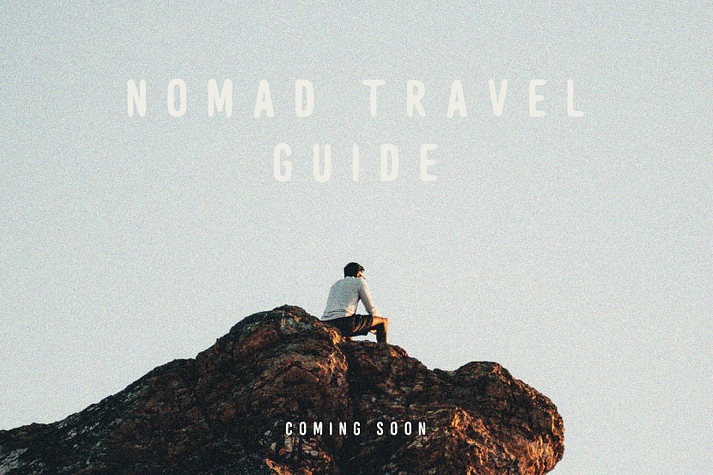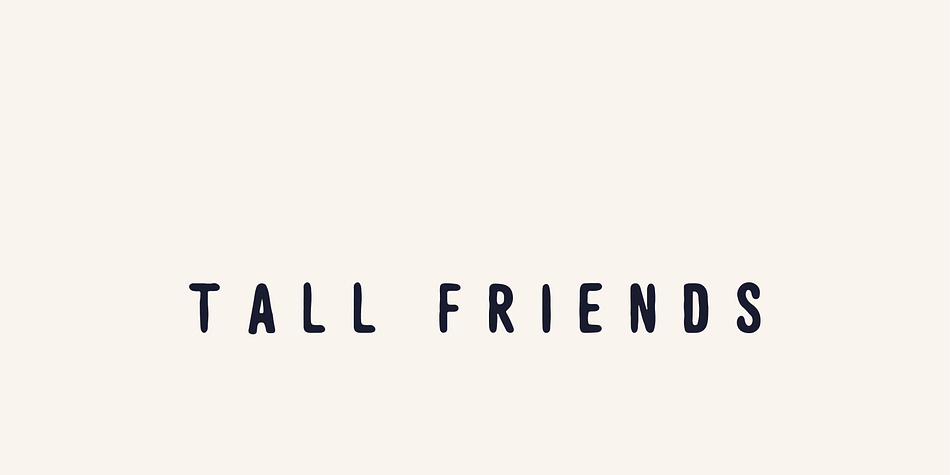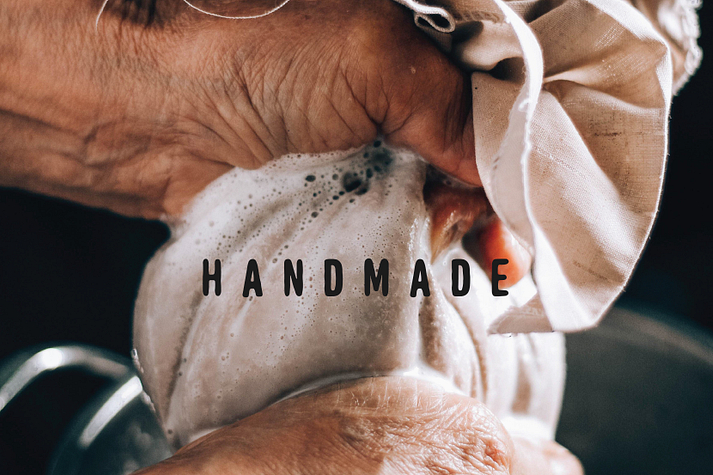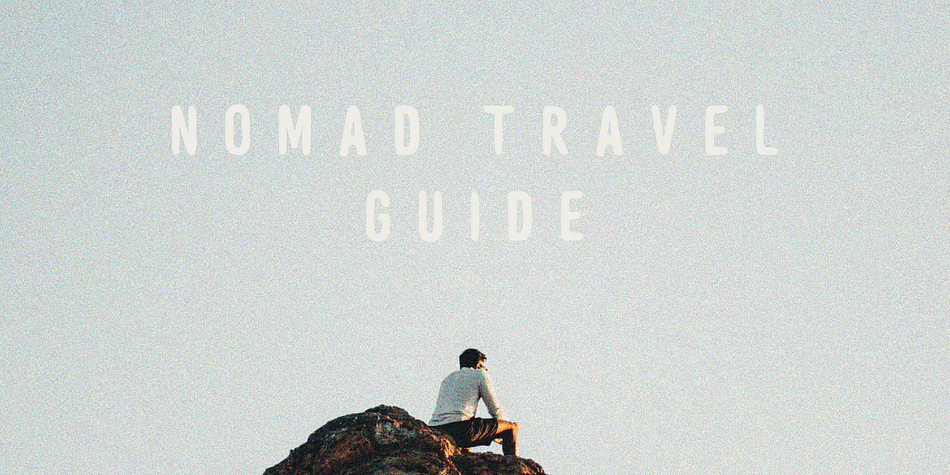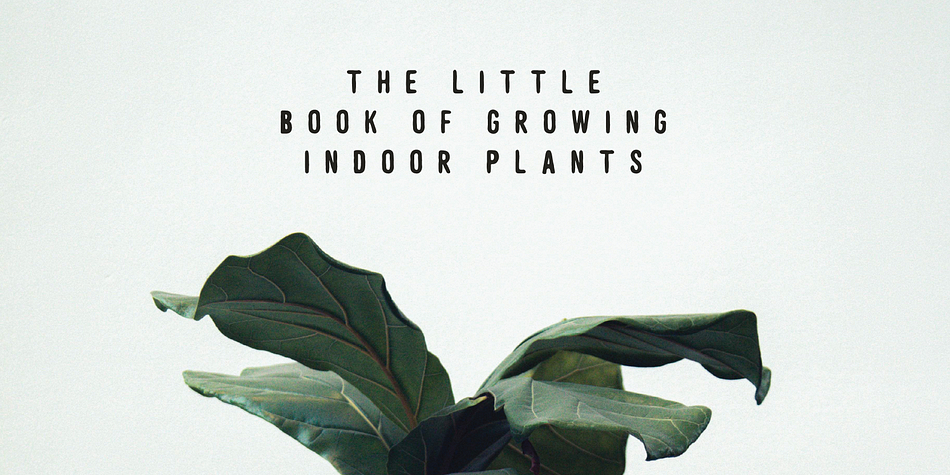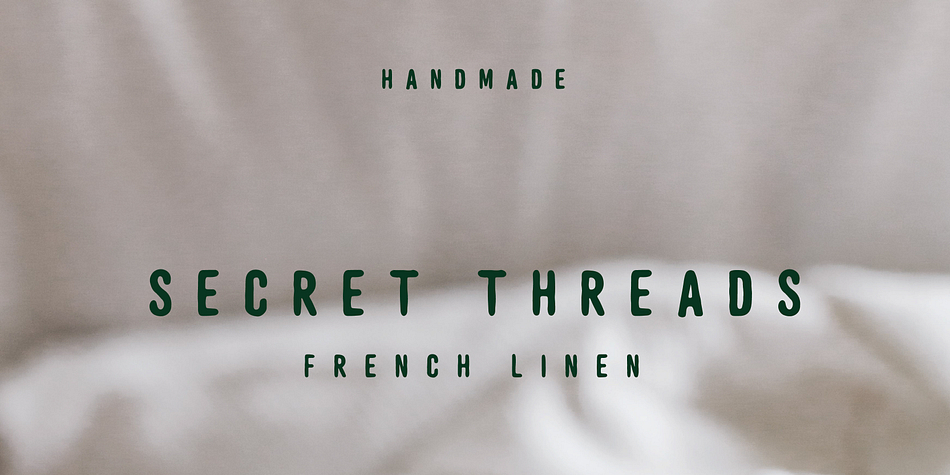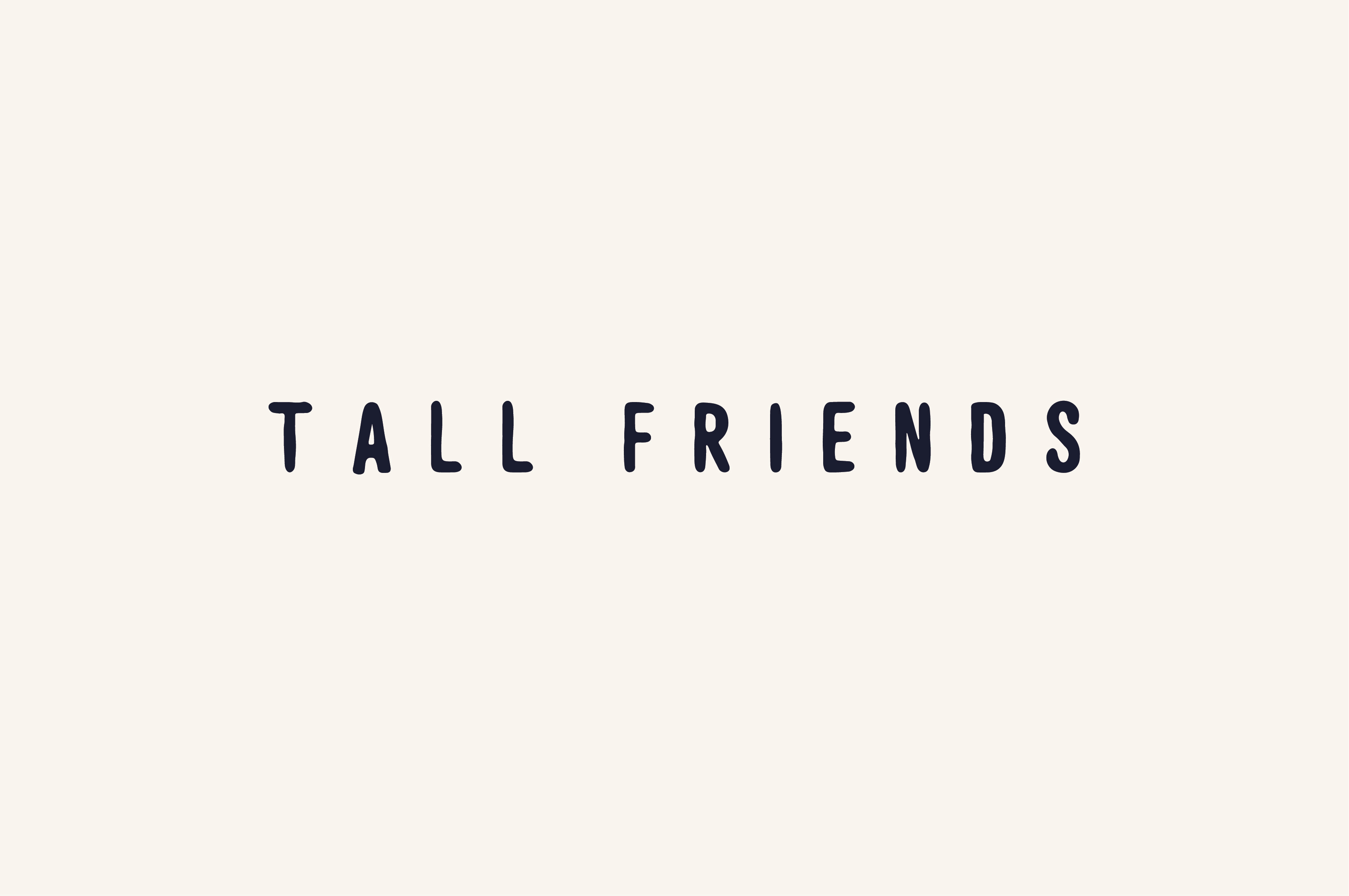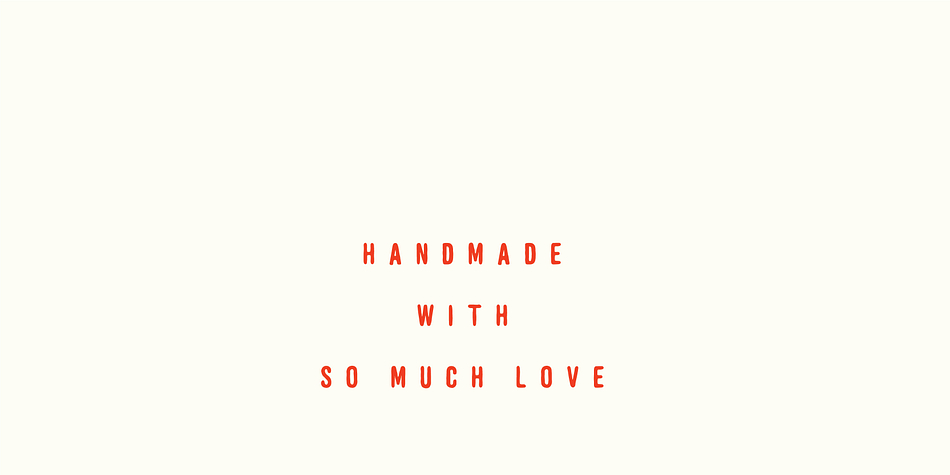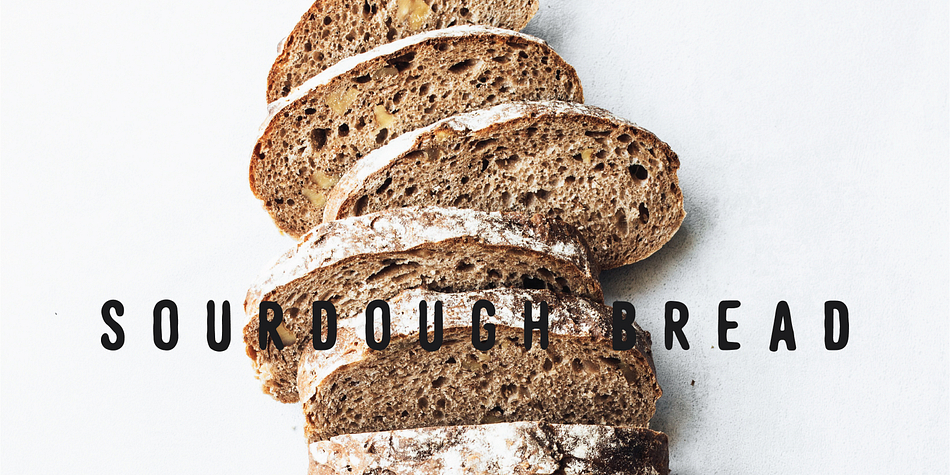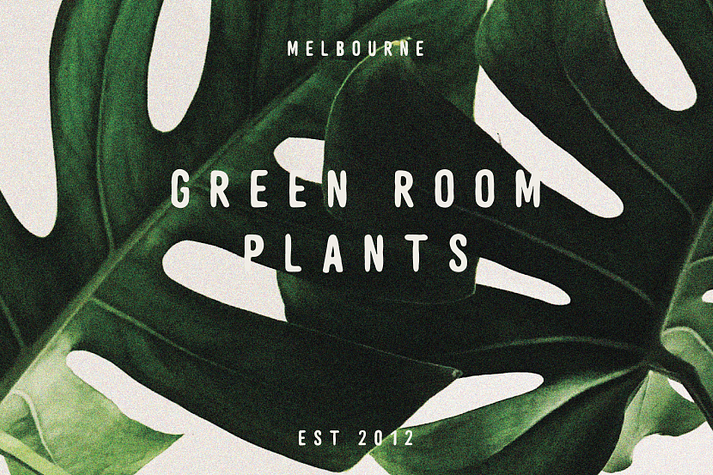
TALL FRIENDS
Tall Friends is a display sans font family published by Loryn Ipsum.
TALL FRIENDS | handwritten sans serif font
Prefect for; handmade products, rustic small food businesses, plant businesses, cafés, ceramics, branding, logos.